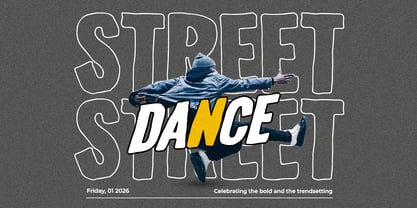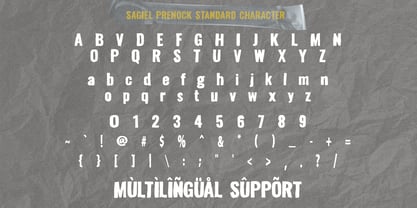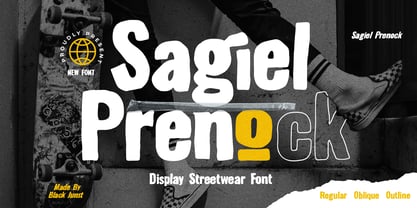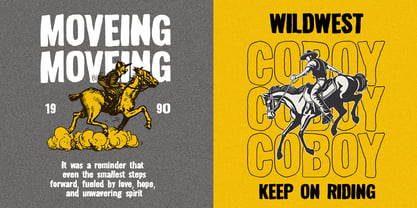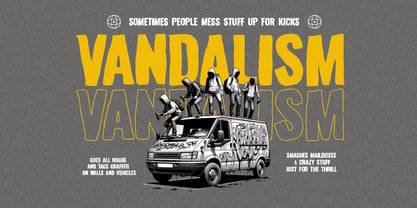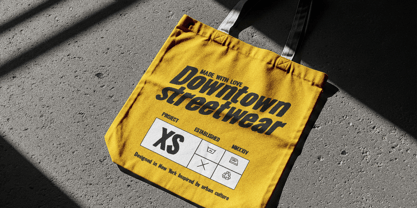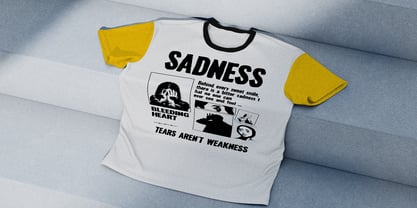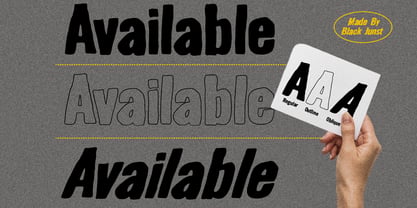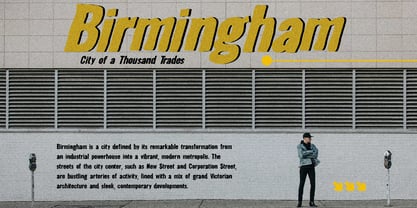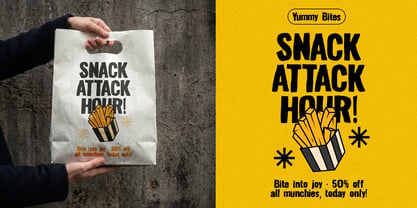
Sagiel Prenock
by Black Junst
The Sagiel Prenock Font Family was designed by Maulana Semar and published by Black Junst. Sagiel Prenock contains 3 styles and family package options. More about this family
Sagiel Prenock is a bold display streetwear font designed to make your designs stand out instantly. With its chunky, playful, and urban-inspired letterforms, this font delivers a strong personality and high visual impact, perfect for grabbing attention in seconds. Tailored for modern creatives, Sagiel Prenock is ideal for streetwear branding, posters, logos, packaging, social media, and merchandise. The unique character shapes, combined with a slightly retro-groovy vibe, provide your projects with a fresh yet nostalgic edge. Whether you're building a fashion brand, creating eye-catching thumbnails, or designing bold headlines, this font empowers you to be loud and unapologetic. What’s Included: Regular, Oblique, Outline, Uppercase & Lowercase, Numbers & Punctuation, Multilingual Support, Alternates & Ligature. Create bold. Stay different. Get noticed.